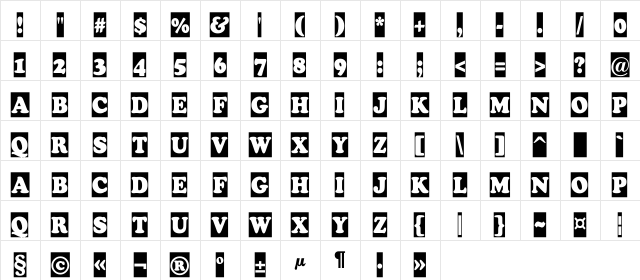
a_CooperBlackCm Regular Font Preview
a_CooperBlackCm Regular
a_CooperBlackCm Regular Font Details
Design Context for a_CooperBlackCm Typeface
a_CooperBlackCm is a composed and adaptable typeface that performs quietly and consistently across a wide range of design contexts.